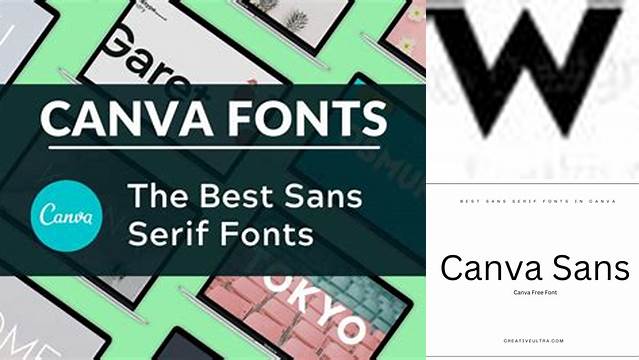
Hey guys! Looking for that perfect bold font to make your designs pop? Well, you've landed in the right spot! In this article, we're diving deep into the world of Canvasans Bold, a fantastic font choice that can add a touch of elegance and impact to your projects. We'll cover everything from what makes Canvasans Bold so special to where you can snag it for free and how to best use it in your designs. So, buckle up and let's get started!
When it comes to typography, choosing the right font can make or break a design. A font isn't just about the letters; it's about the mood, the message, and the overall aesthetic you're trying to convey. Canvasans Bold is a versatile typeface that strikes a balance between modern sophistication and readability. Its clean lines and strong presence make it an excellent choice for a wide range of applications, from headlines and logos to body text in print and digital media. The bold weight adds extra emphasis, ensuring your message stands out. Whether you're working on a website, a poster, a presentation, or any other design project, Canvasans Bold can help you create a professional and eye-catching look. Its versatility means it pairs well with various other fonts, giving you plenty of creative freedom to experiment and find the perfect combination. Plus, who doesn't love a high-quality font that's also available for free? In the following sections, we'll delve into the specifics of why Canvasans Bold is such a great choice, where you can download it without spending a dime, and how to make the most of it in your designs. So, keep reading to unlock the full potential of this amazing font and elevate your creative projects to the next level!
So, what's the buzz about Canvasans Bold? Why is it a font that designers and creatives are often on the lookout for? Let's break it down. First off, the clean and modern design of Canvasans Bold gives it a timeless appeal. It's not overly trendy, meaning it won't look dated in a few years. This makes it a solid investment for any project that needs to stand the test of time. The bold weight adds a level of impact and visibility that's crucial for headlines, titles, and any text you want to grab attention. Think about it – when you see a headline in a bold font, it immediately stands out and draws you in. That's the power of Canvasans Bold.
Another key feature is its legibility. Some bold fonts can become clunky or difficult to read, especially in smaller sizes. Canvasans Bold, however, maintains its clarity even at smaller sizes, making it suitable for body text as well as larger headings. This versatility is a huge plus, as you can use it throughout your design without sacrificing readability. Furthermore, Canvasans Bold often comes with a full character set, including numerals, punctuation, and special characters, ensuring you have everything you need for a complete design. This comprehensive nature means you won't have to hunt for supplementary fonts to fill in the gaps. It's a one-stop shop for all your typographic needs. The font's design also considers kerning and spacing, meaning the letters are carefully spaced to create a harmonious and balanced appearance. This attention to detail results in a professional and polished look that can elevate any project. And let's not forget the availability! The fact that you can often find Canvasans Bold for free makes it an incredibly accessible option for designers of all levels. Whether you're a seasoned pro or just starting out, having access to high-quality fonts without breaking the bank is a major win. So, in summary, Canvasans Bold stands out due to its clean design, legibility, versatility, comprehensive character set, and, of course, its affordability. It's a font that ticks all the boxes, making it a valuable addition to any designer's toolkit.
Now that you've got Canvasans Bold in your font arsenal, let's talk about how to wield its power effectively in your designs. This font is incredibly versatile, but like any tool, it works best when used thoughtfully. One of the most common uses for Canvasans Bold is in headlines and titles. Its strong, clear presence makes it perfect for grabbing attention and setting the tone for your content. Think about a website header, a poster title, or even a presentation slide – Canvasans Bold can make a statement without being overwhelming. Pair it with a lighter weight or a different font family for body text to create a visual hierarchy that guides the reader's eye.
When it comes to branding, Canvasans Bold can be a fantastic choice for logos and brand materials. Its modern and professional look can convey a sense of trustworthiness and sophistication. Consider using it in your logo, business cards, and marketing collateral to create a consistent and impactful brand identity. The font's legibility also makes it suitable for use in both print and digital formats, ensuring your brand looks cohesive across all platforms. For web design, Canvasans Bold can be used for headings, navigation menus, and call-to-action buttons. Its readability on screens makes it a great option for improving user experience. Just be mindful of font sizes and spacing to ensure your text remains clear and easy to read on different devices. In print design, such as brochures, flyers, and posters, Canvasans Bold can add a touch of elegance and professionalism. Its strong presence makes it ideal for headlines and subheadings, while its legibility ensures that body text remains readable. Experiment with different sizes and weights to create visual interest and hierarchy. When using Canvasans Bold, it's essential to consider font pairing. While it can stand alone beautifully, combining it with other fonts can create a more dynamic and visually appealing design. Pair it with a clean and simple sans-serif font for body text, or try a classic serif font to add a touch of contrast. Remember, the key is to create balance and harmony in your typography. Finally, don't be afraid to experiment with Canvasans Bold. Try different sizes, weights, and styles to see what works best for your project. Play with letter spacing and line height to create different effects. The more you experiment, the more you'll discover the full potential of this amazing font. So, go ahead and unleash your creativity with Canvasans Bold!